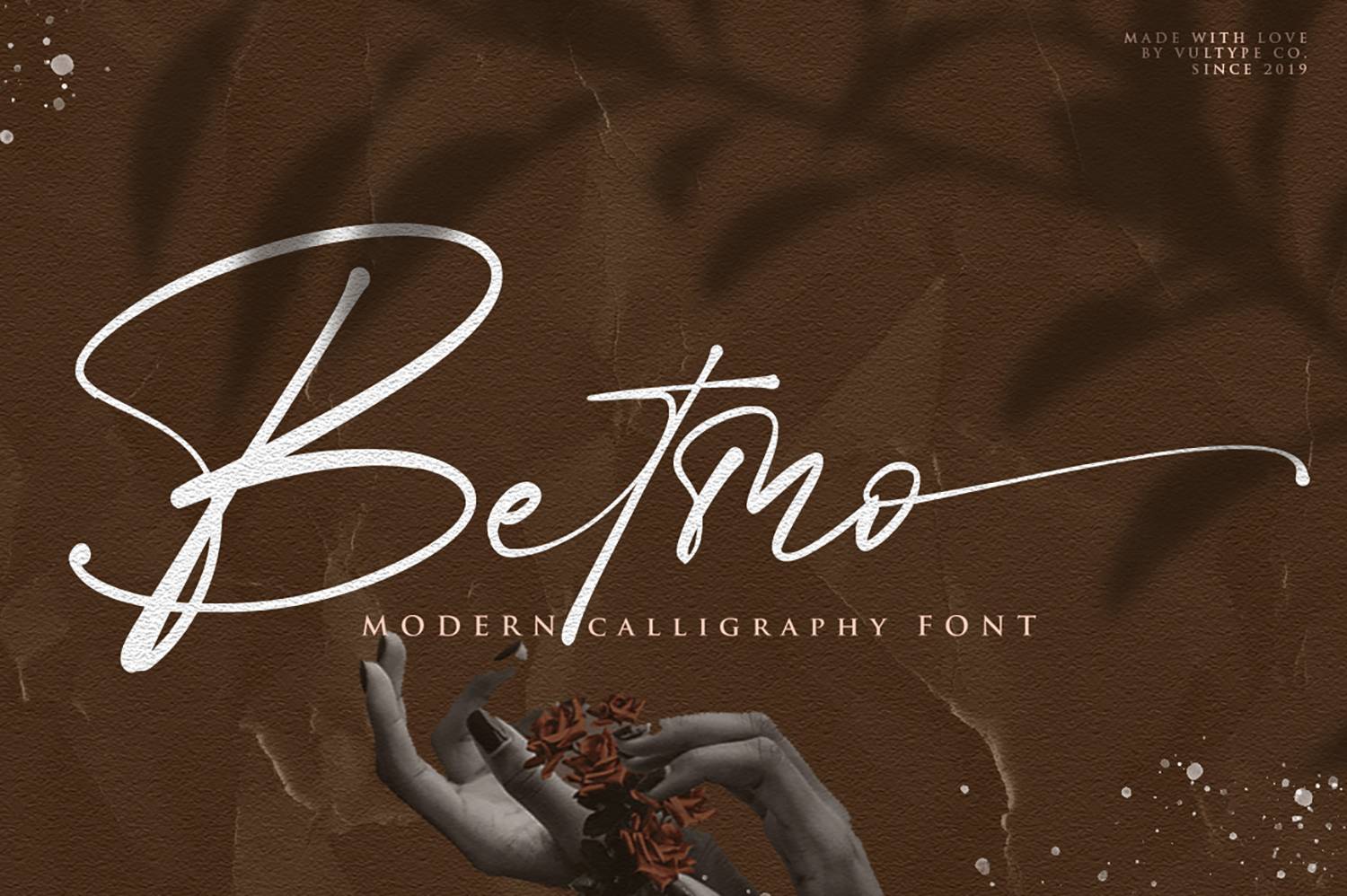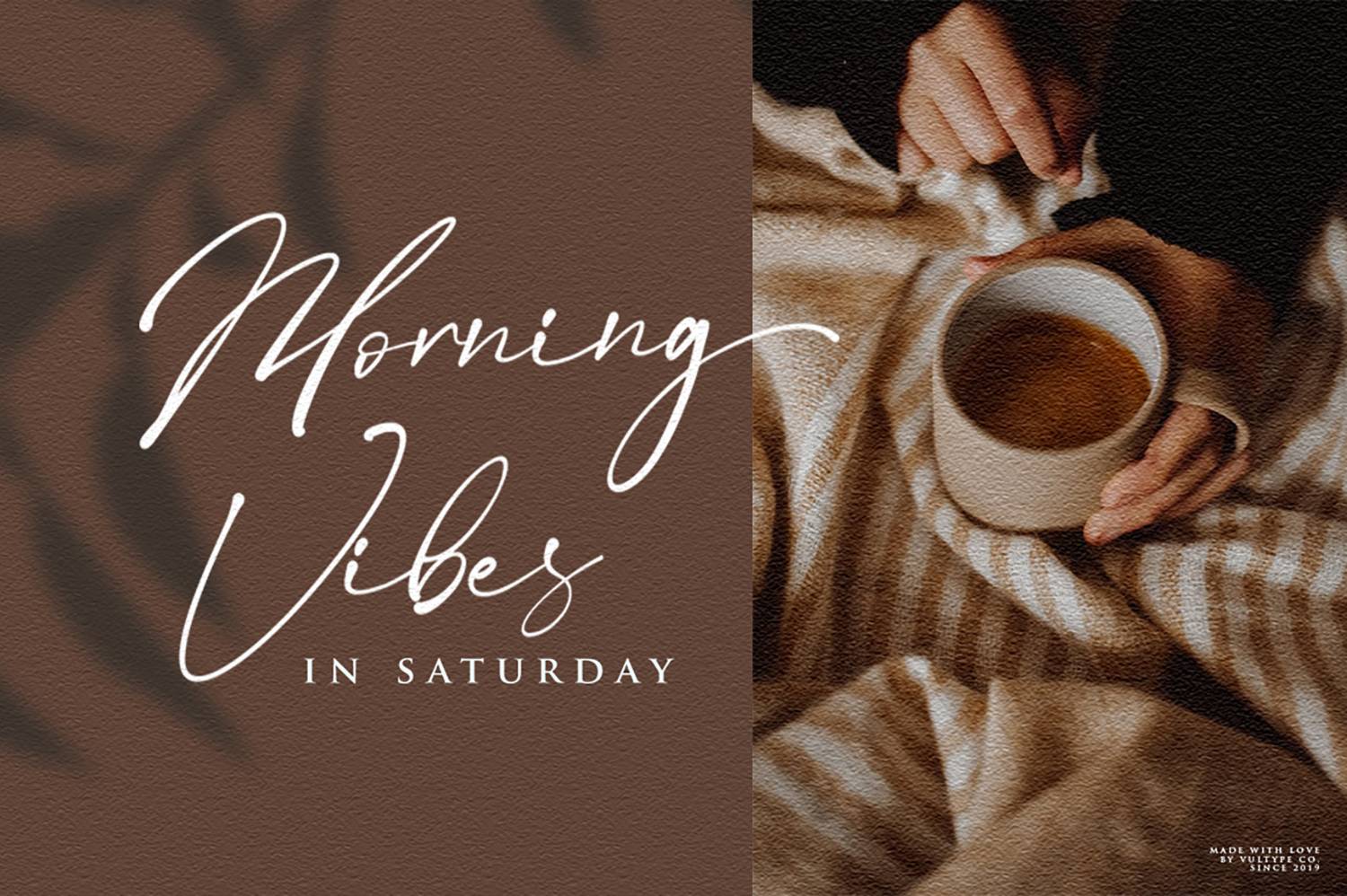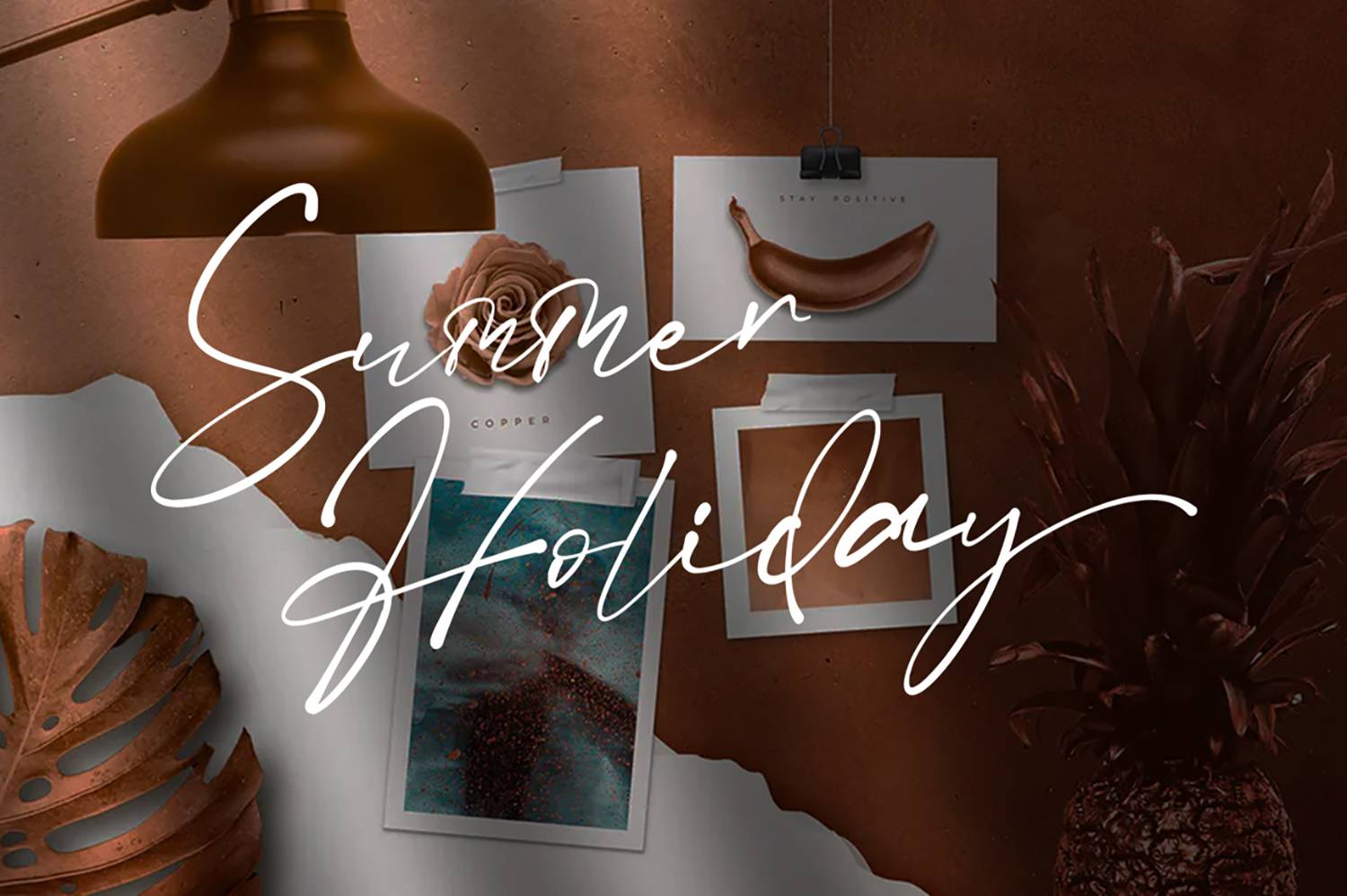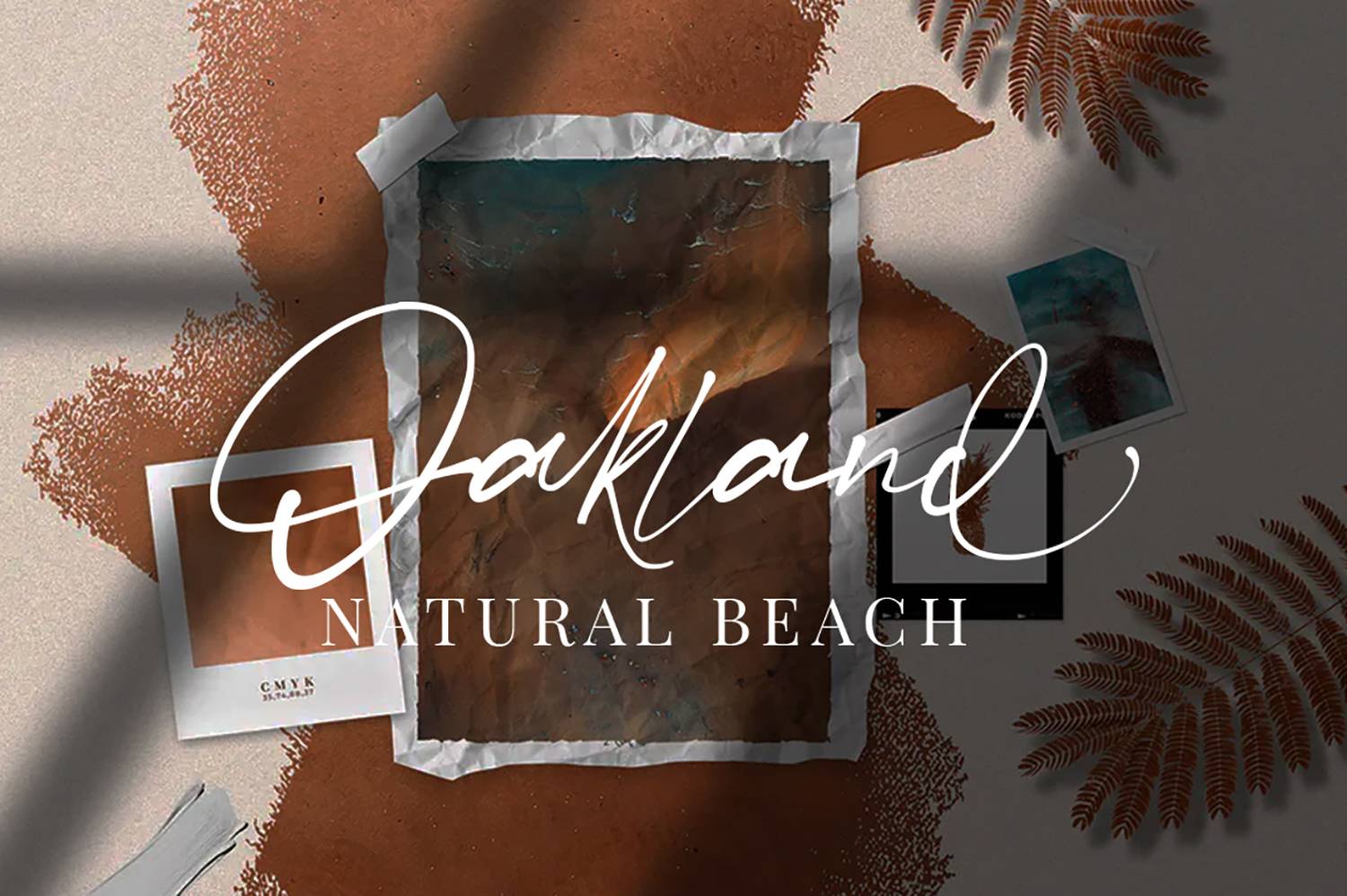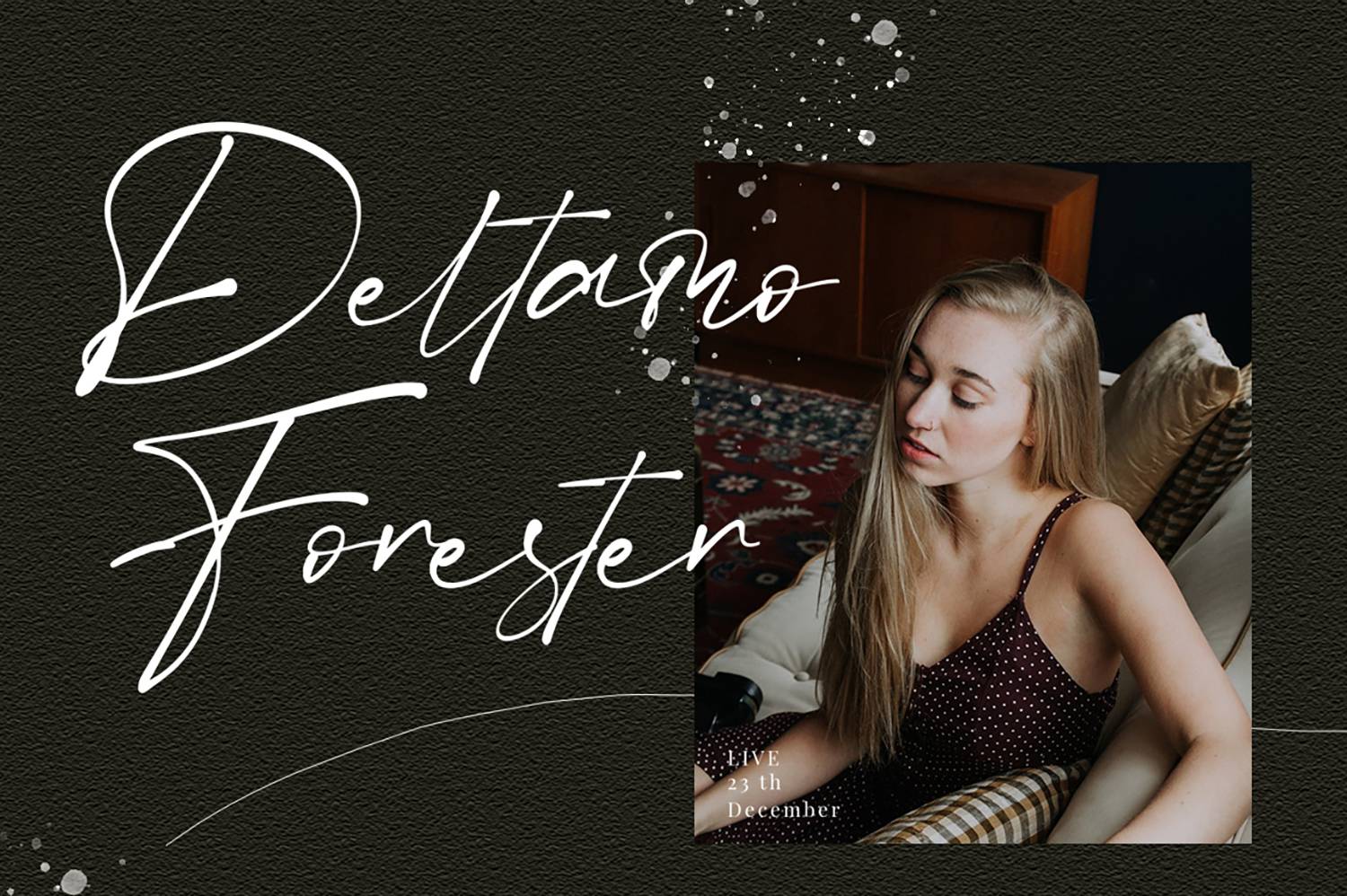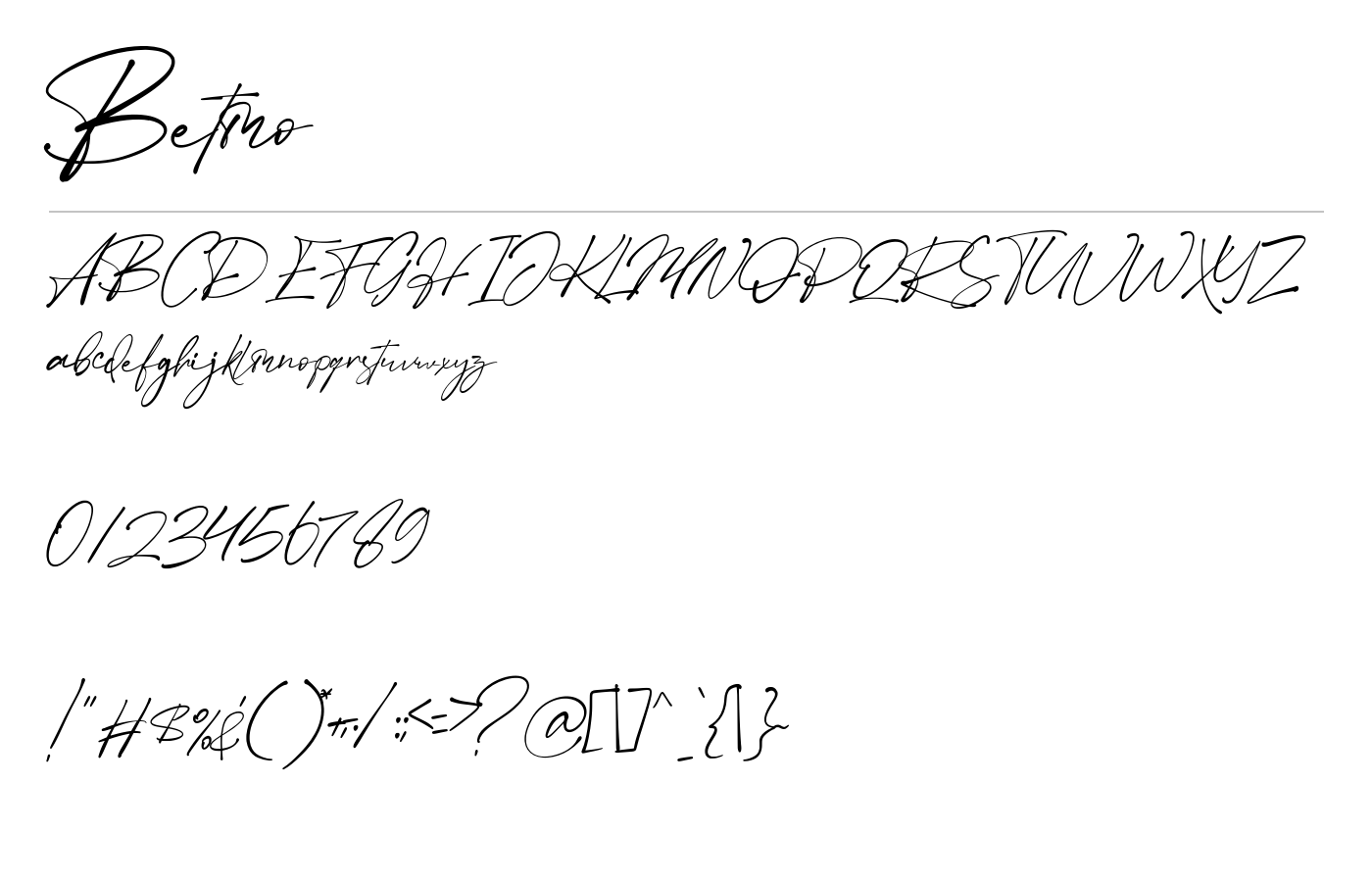
Betmo is a delicate, modern script font with a handwritten, elegant feel characterized by its flowing thin strokes and varied line weight. Its airy, casual style makes it perfect for creative branding, invitations, and editorial projects where a personal, graceful touch is desired. This font works especially well for fashion, beauty, and lifestyle designs that aim to communicate sophistication with a relaxed, artistic flair.
Betmo Font
About Betmo Font
| Font family | Betmo Font |
| Designer | Candra Vultype |